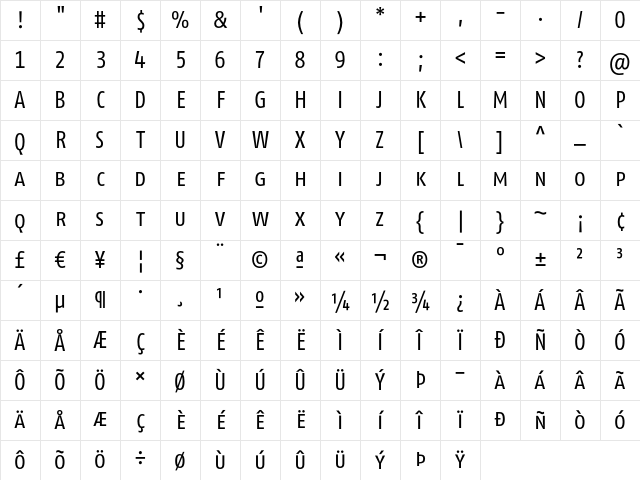
FagoCoTf-Caps Regular Free Font
FagoCoTf-Caps Regular
Design Context for FagoCoTf-Caps
FagoCoTf-Caps is a composed and adaptable typeface that performs quietly and consistently across a wide range of design contexts.